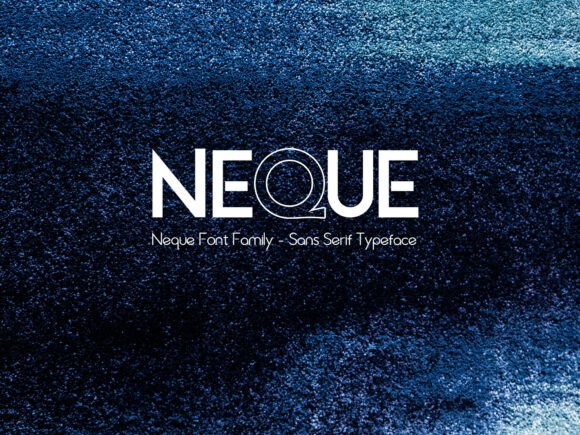
Neque Regular: A Modern Sans Serif for Campaigns
The deadline for the summer product teaser was looming, and my mockups were looking cluttered. I had a stunning hero image of our new minimalist skincare line, but every headline I tried felt either too heavy or too generic. The standard system fonts lacked the premium feel we needed to signal quality without saying a word. That’s when I switched to Neque Regular. Within minutes, the visual hierarchy snapped into place. The geometric precision of this typeface cut through the noise, making the "New Arrival" callout pop with an authority that felt both modern and timeless. It wasn't just a font swap; it was a complete shift in how the campaign communicated value.
As a marketing designer who lives in the trenches of social media graphics and digital ad layouts, I know that typography is the silent salesman of your brand. Neque Regular isn't just another addition to the Fonts library; it is a strategic asset. This review breaks down exactly how this refined sans serif performs in real-world workflows, from Instagram stories to YouTube thumbnails, and why its minimalist elegance might be the missing piece in your next big launch.
Neque Regular for Minimalist Social Media Graphics
When designing for platforms like Instagram or Pinterest, you are fighting for attention in a fast-scrolling feed. Neque Regular, as a core component of modern Sans Serif design, excels here because of its inherent clarity. Unlike decorative scripts or overly stylized display fonts that can get lost on a mobile screen, Neque Regular maintains its structural integrity even at smaller sizes. In my recent campaign for a tech gadget launch, I used this typeface for overlay text on short-form video content. The geometric shapes—crafted with intention from circles and squares—created a clean backdrop that allowed the product imagery to shine while the message remained legible.
The personality of Neque Regular is one of quiet confidence. It doesn't shout; it states. This makes it perfect for quote graphics, daily tips, or behind-the-scenes reels where the brand voice needs to feel approachable yet professional. When I tested it against a bold, aggressive competitor font, the engagement metrics on the preview stage suggested a higher perceived trustworthiness. The font's minimalism reduces cognitive load, allowing the audience to absorb the message instantly before they scroll past. For any marketer building a content series that relies on consistency, this typeface offers a reliable foundation that looks premium without requiring excessive design effort.
Using Neque Regular for YouTube Thumbnails and Video Covers
Click-through rates often hinge on the first impression created by a thumbnail. If the text is hard to read on a 100-pixel-wide preview, the video loses its chance. Neque Regular solves this common pain point with its open counters and balanced stroke weights. In a recent set of thumbnails for an online course launch, I paired this font with high-contrast background images. The result was a crisp, readable title that stood out even on dark mode interfaces. Because Neque Regular is built on geometric precision, it scales beautifully from desktop monitors down to mobile devices without becoming pixelated or muddy.
This specific application highlights why Fonts designed with geometry in mind are superior for video marketing. The circular elements within the letterforms create a natural flow that guides the eye across the frame. Whether you are creating a "How-To" guide, a product review, or a vlog intro, using Neque Regular ensures your headline commands attention. It works exceptionally well for short, punchy copy—three to five words maximum—which is the sweet spot for video titles. While it might not carry long paragraphs, its strength lies in being the anchor of your visual identity, ensuring that your brand looks cohesive across every single upload.
Neque Regular in Digital Ads and Landing Page Headers
In the world of paid advertising, every pixel counts toward conversion. A landing page header needs to establish credibility immediately, and Neque Regular delivers a sense of established quality that builds trust. I recently redesigned a webinar registration banner using this font for the primary headline. The clean lines and lack of unnecessary ornamentation signaled to the user that the content would be direct, valuable, and free of fluff. This alignment between form and function is crucial in performance marketing.
When integrating Neque Regular into web design or email promotions, its versatility becomes apparent. It pairs effortlessly with other design assets, acting as a neutral yet sophisticated frame for your call-to-action buttons. For a seasonal sale announcement, the font's geometric nature allowed me to use varying weights (if available in the full family) or simply scale the size to create dynamic emphasis without breaking the visual rhythm. However, it is important to note that while excellent for headers and display text, Neque Regular should be used sparingly for body copy in dense informational sections. Its distinct character is best reserved for headlines, subheads, and key promotional messages where impact is the priority over volume.
Strategic Font Pairing with Neque Regular
No typeface exists in a vacuum, and successful branding often relies on smart font pairing. Since Neque Regular is a strong, geometric sans serif font, it benefits from being paired with complementary styles that add texture or contrast. For a more editorial look, I often pair it with a classic serif font for body text, which creates a beautiful tension between modern structure and traditional readability. Alternatively, for a youthful, creative vibe, combining it with a relaxed handwritten font or a casual script font for accents can soften the geometric edges and make the brand feel more human.
If you are a marketer, creator, or business owner looking to elevate your design assets, investing in a premium font like Neque Regular is a move that pays dividends in perception and professionalism. It transforms ordinary announcements into memorable brand moments. Whether you are launching a new product, promoting a service, or simply refreshing your social media presence, let the geometric beauty of Neque Regular lead the way. It is not just a tool for typing; it is a strategic partner in your journey to build a visually compelling and effective brand narrative.